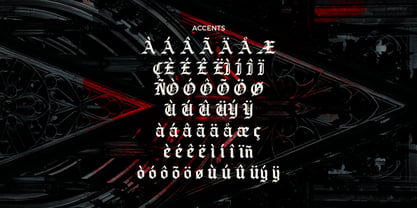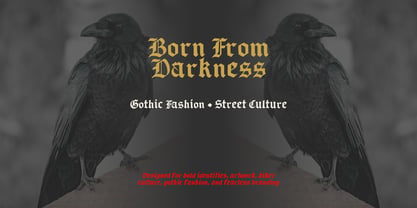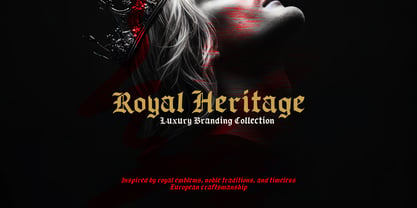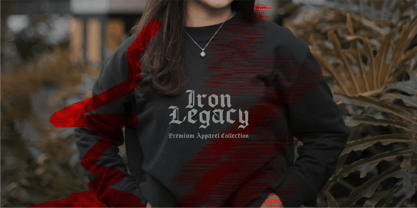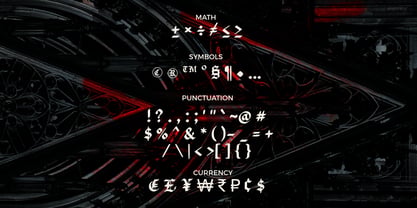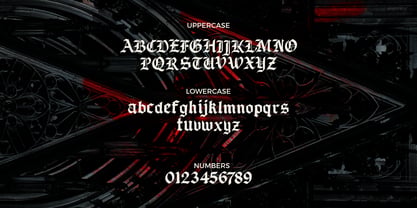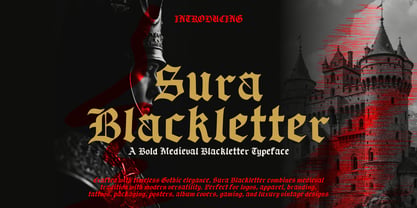
Sura Blackletter
La famille de polices Sura Blackletter a été conçue par Wahyu Eka Prasetya, Mei Suseno et publiée par Mei Suseno. Sura Blackletter contient 2 styles et options de package familial. En savoir plus sur cette famille
Sura Blackletter is a bold Gothic typeface inspired by classic medieval lettering and timeless Old English aesthetics. Featuring sharp angular strokes and authentic Blackletter details, this display font delivers a strong, elegant, and historical character. Perfect for logos, branding, apparel, posters, album covers, gaming, merchandise, packaging, book covers, certificates, and luxury vintage designs. Sura Blackletter brings a powerful visual presence while maintaining excellent readability for impactful headlines and creative projects